There’s something absolutely captivating about letterforms that carry thousands of years of history.
Whether you’re designing for a philosophy class, creating logos for Mediterranean restaurants, or adding an authentic touch to academic presentations, Greek fonts bring a unique blend of classical elegance and timeless sophistication to any project.
But here’s the thing – not all Greek fonts are created equal. Some capture the genuine essence of ancient inscriptions, while others simply evoke that Greek aesthetic we’re all drawn to. And that’s perfectly fine! Sometimes you need authentic Greek letterforms, other times you just want that Mediterranean vibe.
Cultural Note: While some fonts on this list feature authentic Greek characters and historical accuracy, others are stylistic interpretations that capture the “Greek feel” without being linguistically correct. We’ve noted which is which throughout this article to help you choose appropriately for your project. You might also be looking for Aztec Fonts, Medieval Fonts, or Viking Fonts—some of which have a similar look.
In this comprehensive guide, we’ll explore the best Greek fonts available in 2026, from historically accurate typefaces to modern interpretations that simply look fantastic. Let’s embark on this typographic odyssey together!
My Favorite 16 Greek-Style Fonts
I’ve curated this list based on versatility, authenticity, and pure visual appeal. Here are my top picks for Greek fonts that’ll make your designs shine:
Hunger – Ancient Greek Font
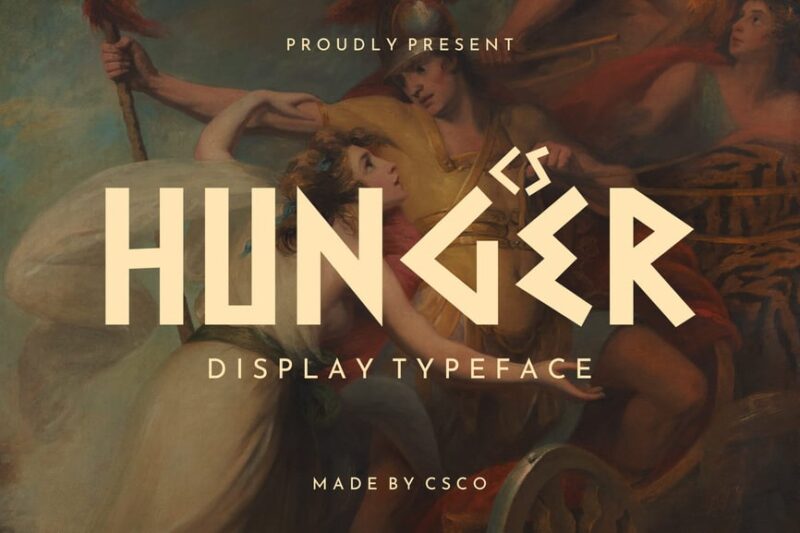
Hunger is a sans-serif font that captures the essence of ancient Greek typography. Its bold, clean lines make it ideal for logos and headlines, offering a modern twist on classical aesthetics.
Greek Freak – Gaming Font
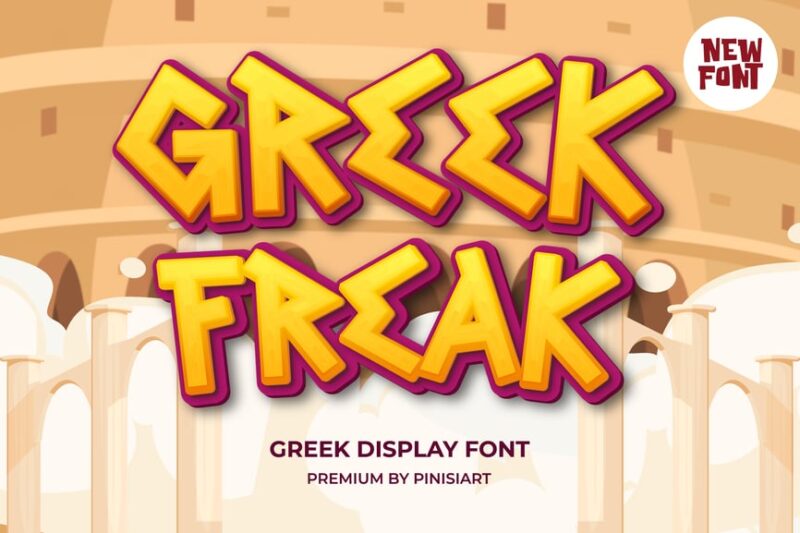
Greek Freak is a decorative font designed specifically for gaming applications. Its strong, energetic characters evoke a sense of adventure and excitement, perfect for game titles and promotional materials.
Roman Greek – Display Serif Font
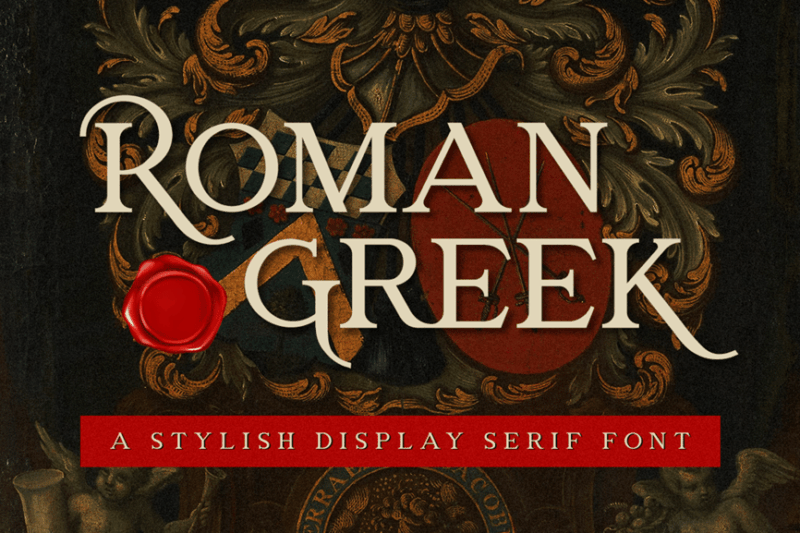
Roman Greek is a serif font that combines classical Roman and Greek typographic elements. Its vintage-inspired design makes it suitable for projects requiring a touch of historical elegance and retro charm.
Greek Myth Decorative Display Font
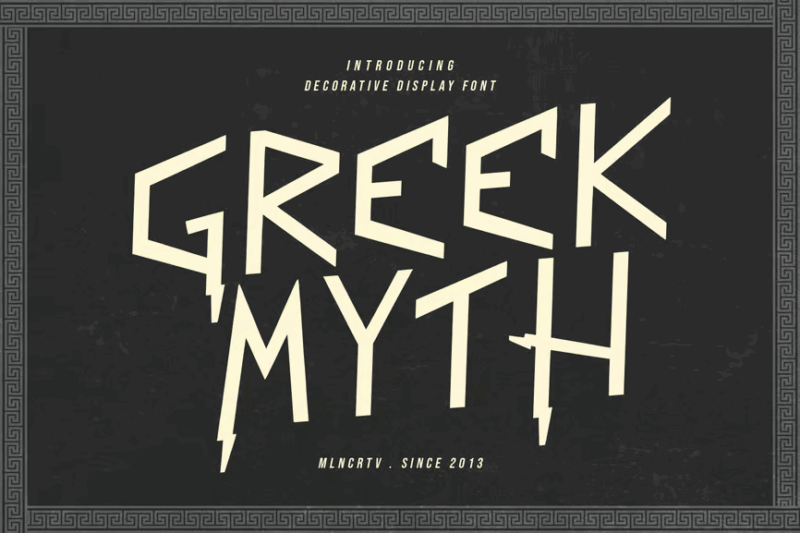
Greek Myth is a decorative display font that draws inspiration from ancient Greek mythology. Its ornate characters and vector-based design allow for versatile use in various graphic design projects, especially those with a mythological theme.
Daewon – Greek Font Style
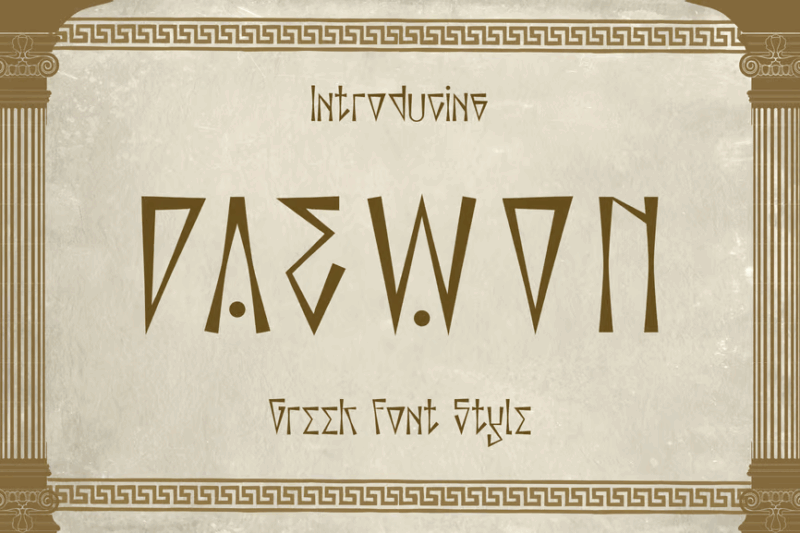
Daewon is a decorative font that emulates ancient Greek writing styles. Its unique character set offers designers a way to infuse their projects with a distinct Hellenic flavor, suitable for both modern and classical-themed designs.
Grave Party | A Handwritten Greek Font
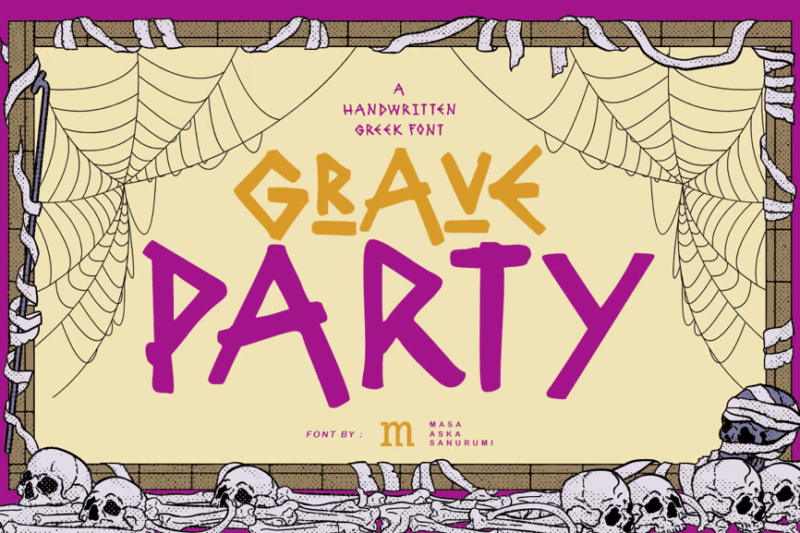
Grave Party is a handwritten script font with a Greek twist. Its playful yet eerie style makes it perfect for Halloween-themed designs or projects that require a touch of spooky handwritten charm.
Farley – Ancient Greek Font
Farley is a decorative font inspired by ancient Greek typography. Its bold characters and clean lines make it excellent for logos and headlines, offering a modern interpretation of classical Greek letterforms.
Nakoa – Ancient Greek Font
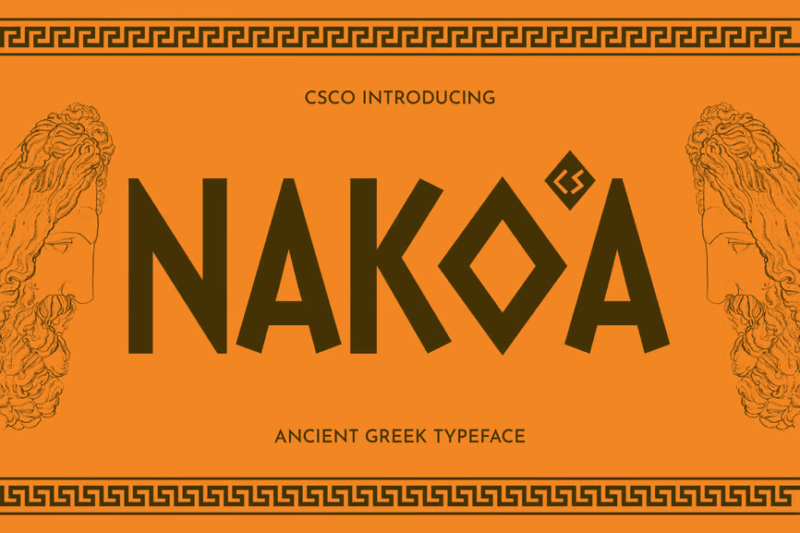
Nakoa is a decorative font that draws inspiration from ancient Greek inscriptions. Its distinctive characters are ideal for creating eye-catching logos and headlines with a historical flair.
Greek Meswax Font
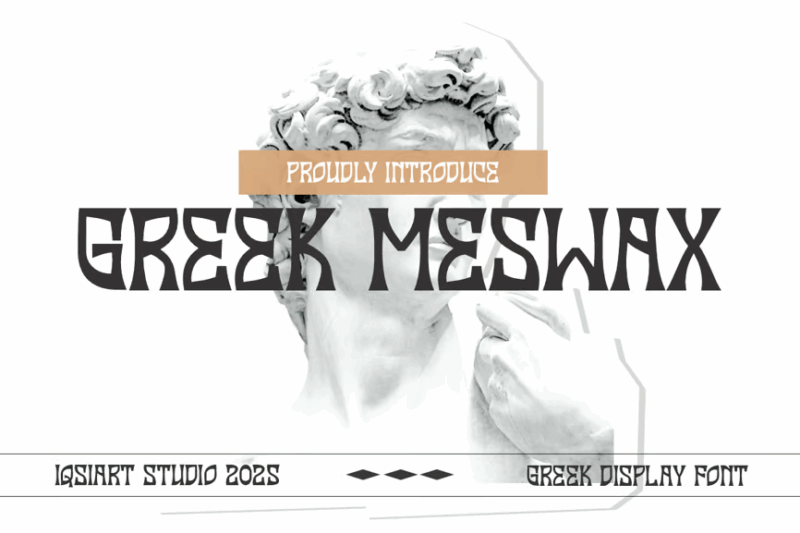
Greek Meswax is a decorative font with a unique blend of Greek-inspired design and tropical vibes. Its spring-like freshness makes it suitable for projects that require a fusion of classical and contemporary aesthetics.
Greek Rubone – Ancient Greek Font
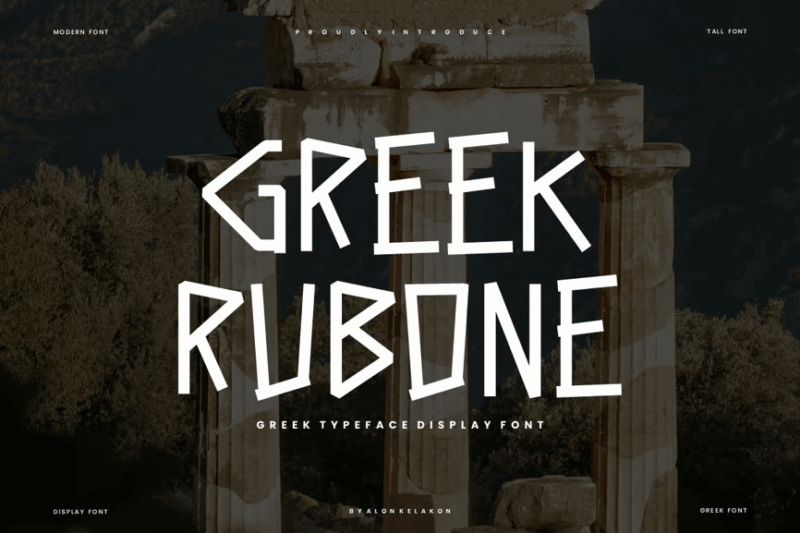
Greek Rubone is a sans-serif font that combines ancient Greek influences with a modern marker-style aesthetic. Its bold strokes make it particularly suitable for sports-related designs, especially those with a baseball theme.
Greek Reford – Unique Typeface Font
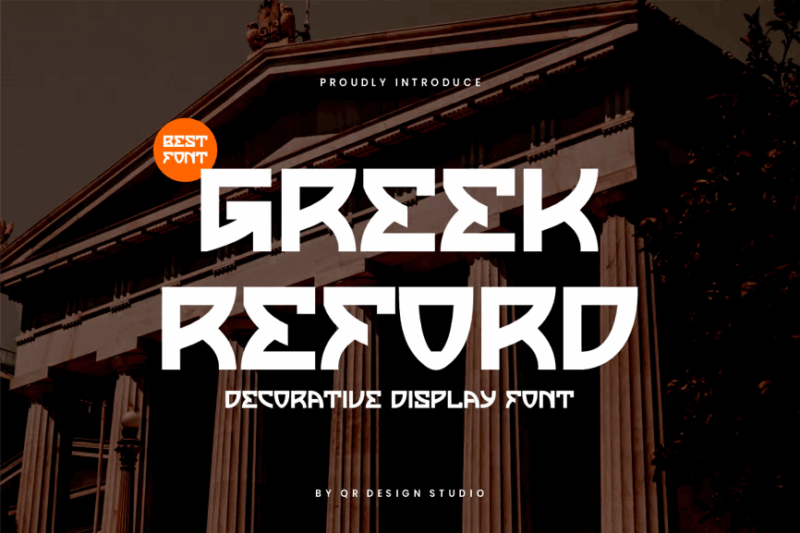
Greek Reford is a decorative font that offers a unique twist on traditional Greek typography. Its condensed characters and sporty feel make it ideal for athletic-themed designs and projects requiring a bold, compact typeface.
Valerine Modern Serif Font
Valerine is a modern serif font that combines classical elegance with contemporary design principles. Its refined characters offer a fresh take on traditional serif typography, suitable for a wide range of design applications.
Which Greek font speaks to you? Whether you’re channeling ancient philosophy or modern Mediterranean style, there’s something magical about typography that carries thousands of years of human wisdom. Start experimenting with these fonts, and let the classics inspire your next great design!